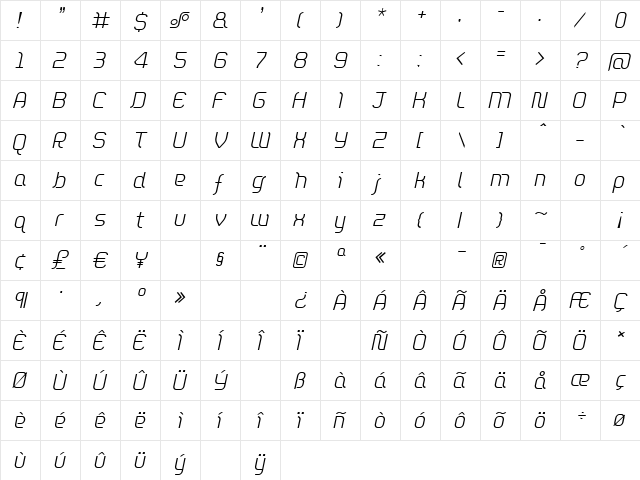
DieppeLight Oblique Regular Font Preview
Design Context for DieppeLight Oblique Typeface
DieppeLight Oblique is a composed and adaptable typeface that performs quietly and consistently across a wide range of design contexts. Its italic angle brings a sense of urgency and motion to the letterforms. The delicate stroke weight brings airiness and refinement to layouts.
Pro Tip: Try DieppeLight Oblique for annotation and caption copy alongside an upright companion — the contrast in angle creates a dynamic but ordered typographic system.